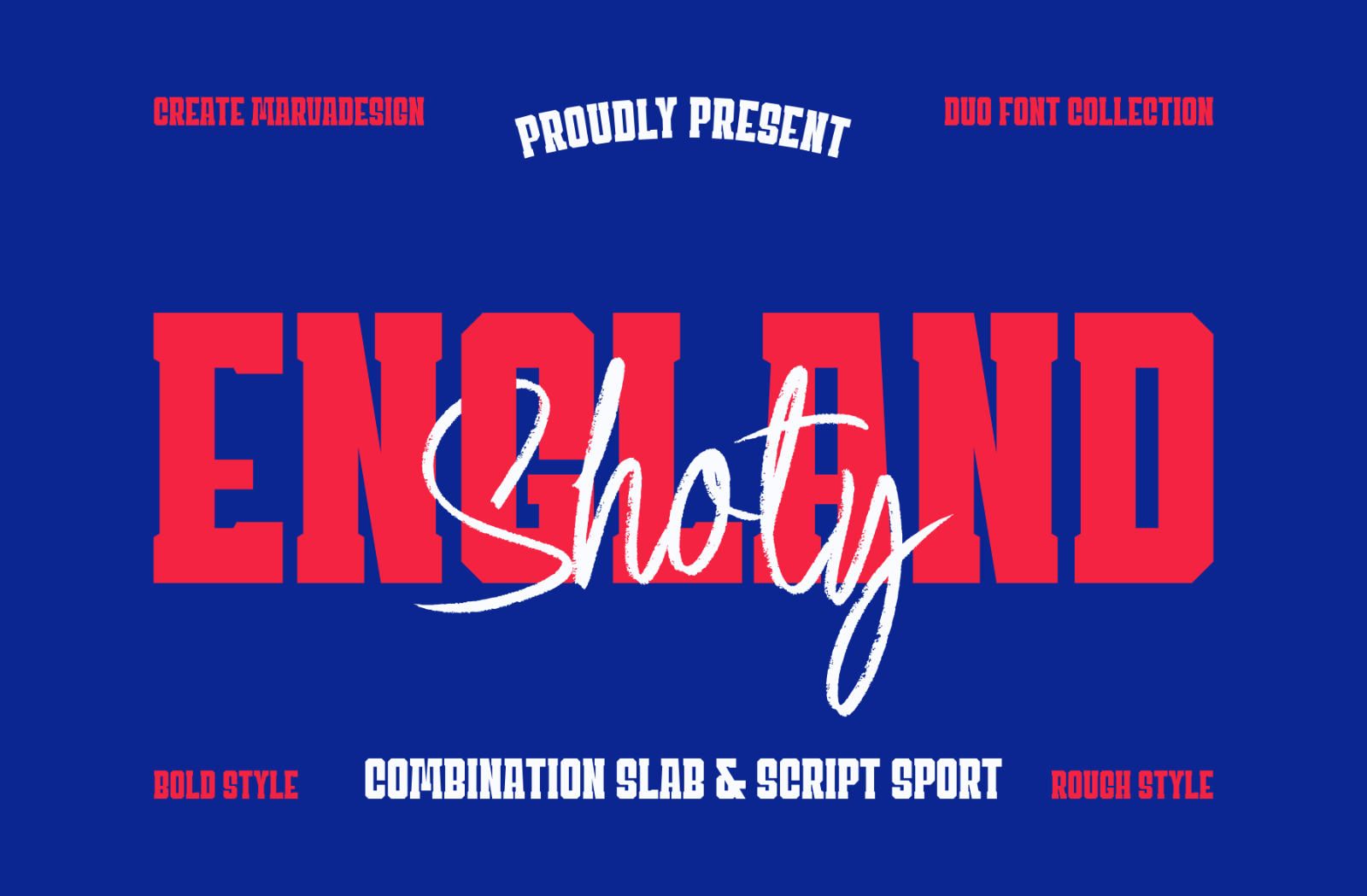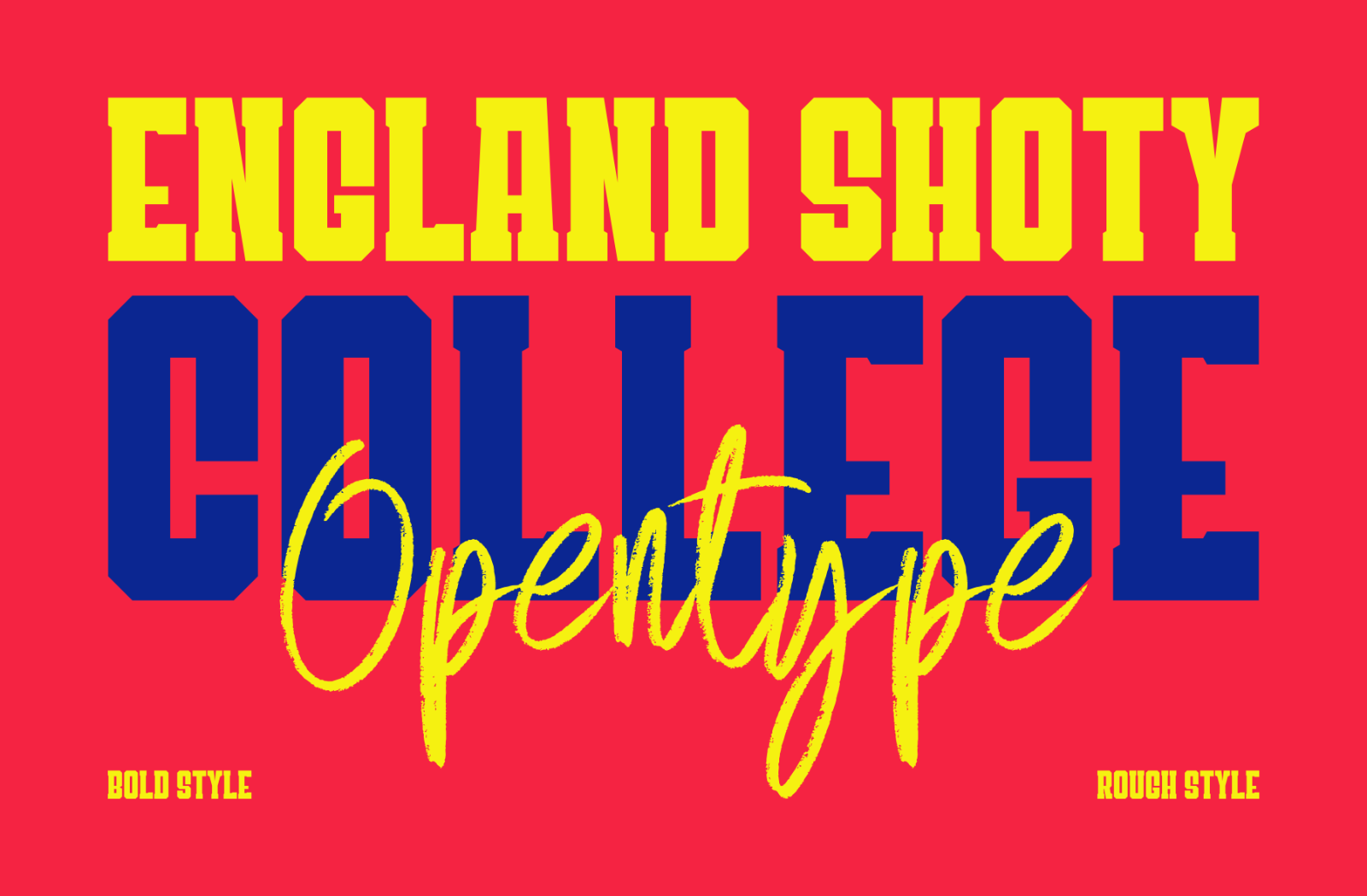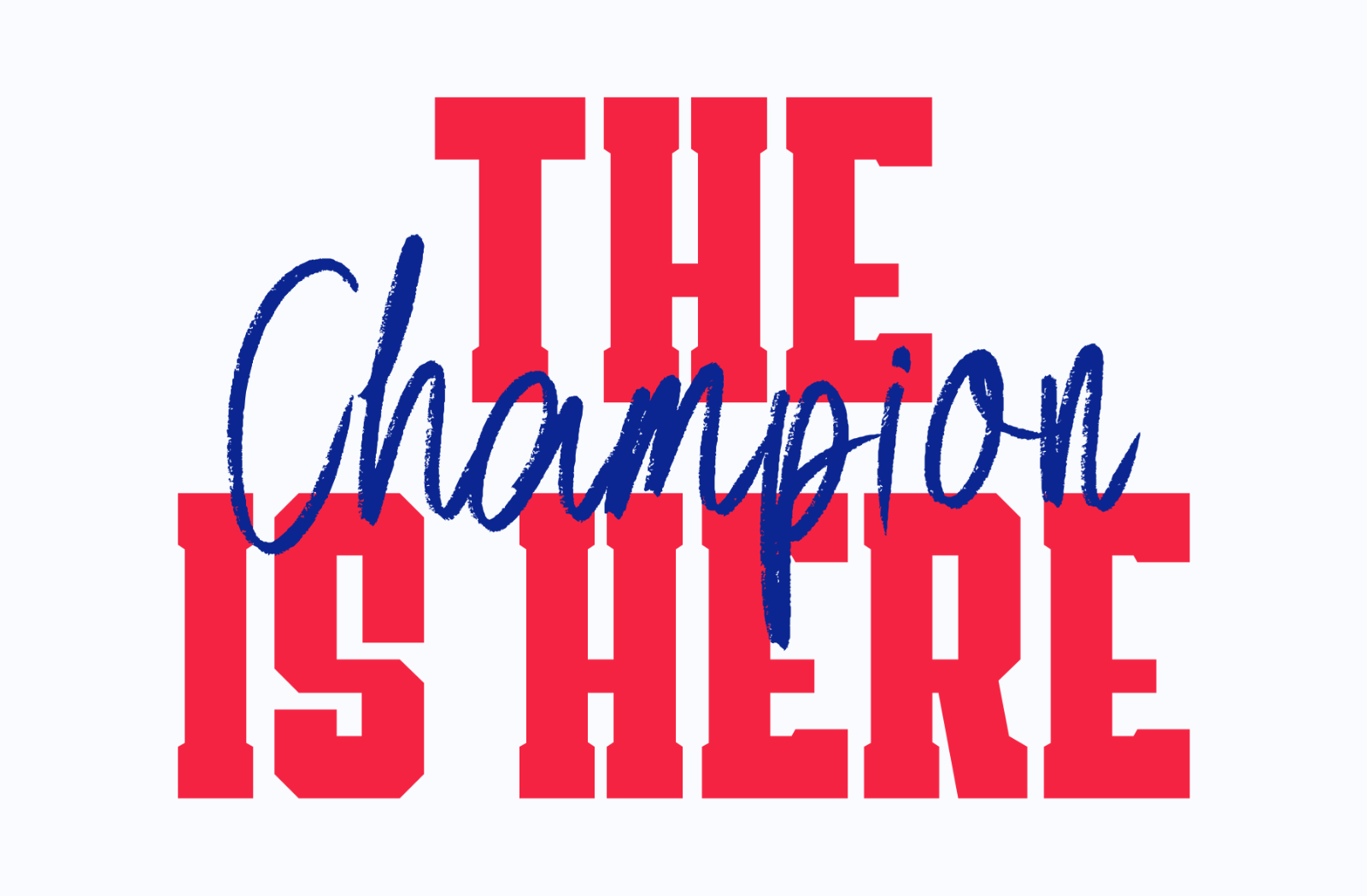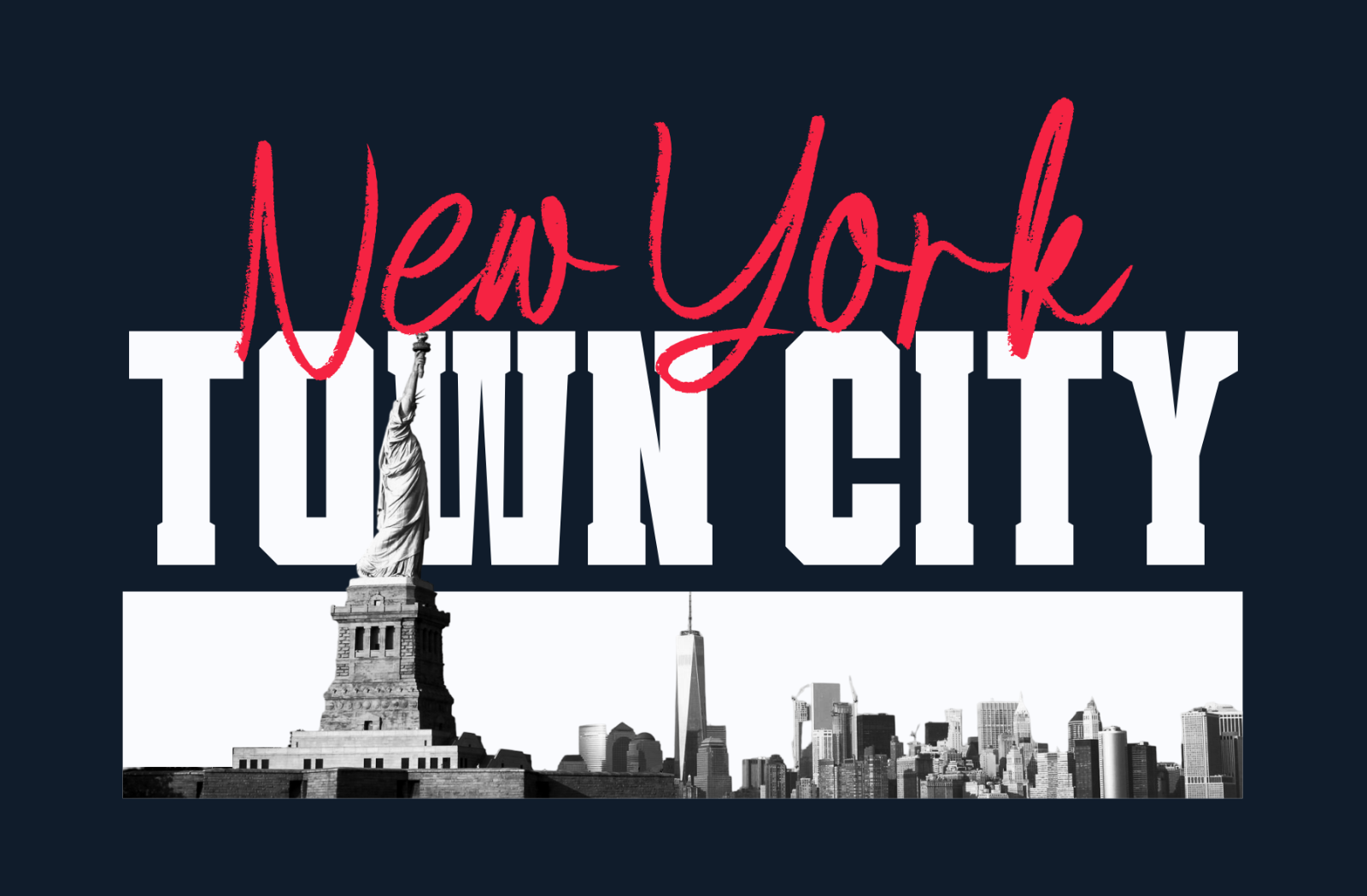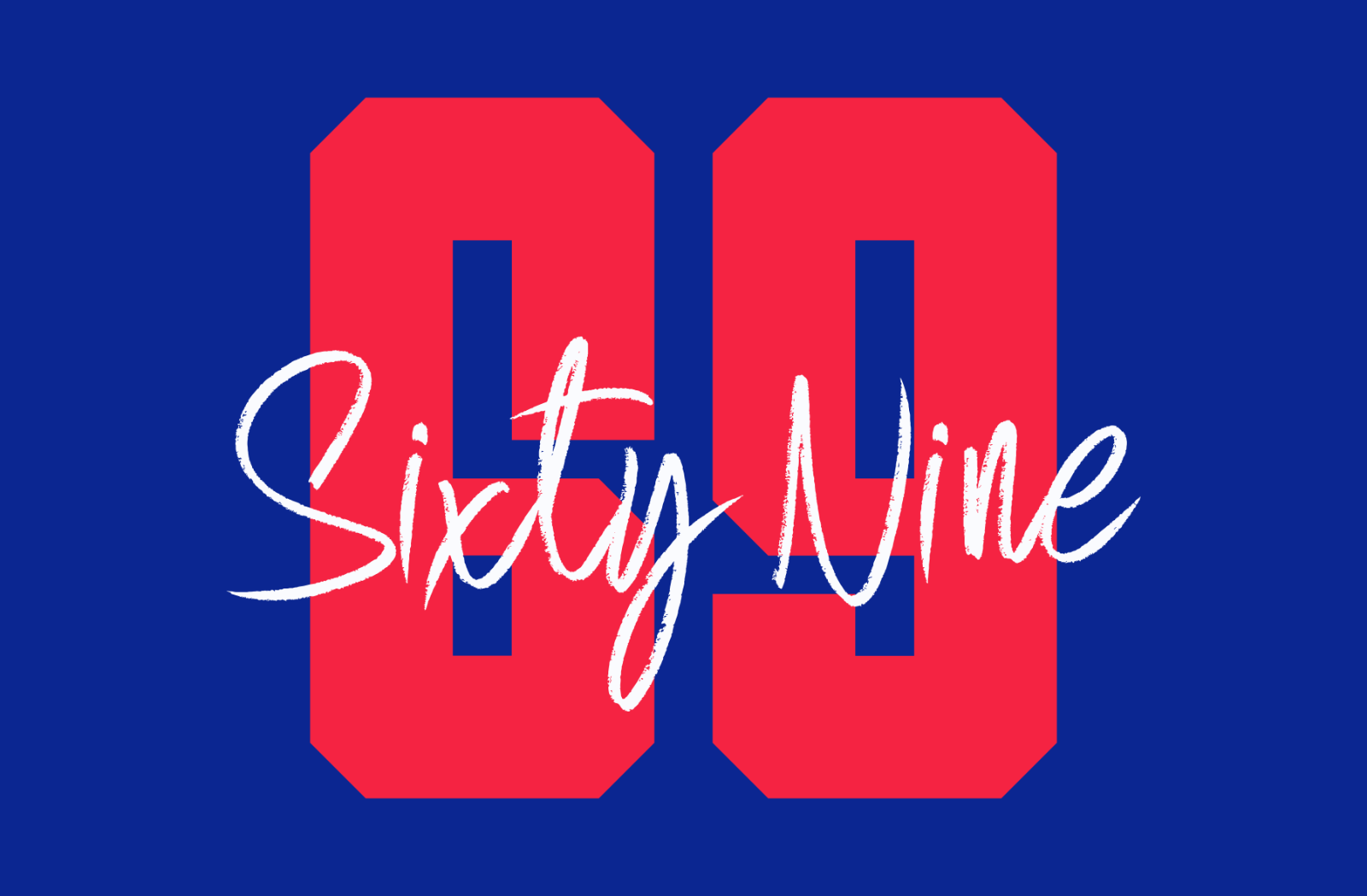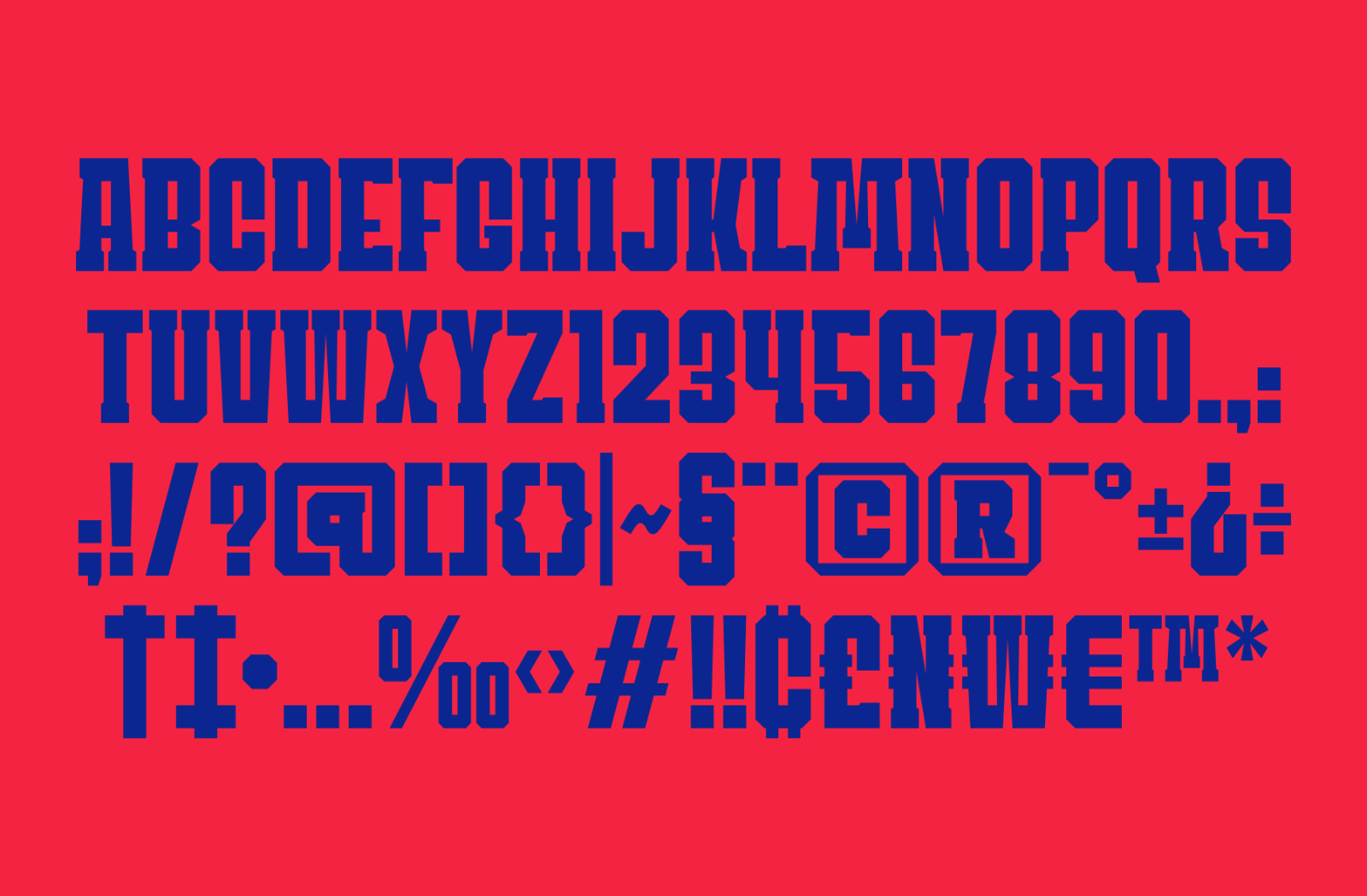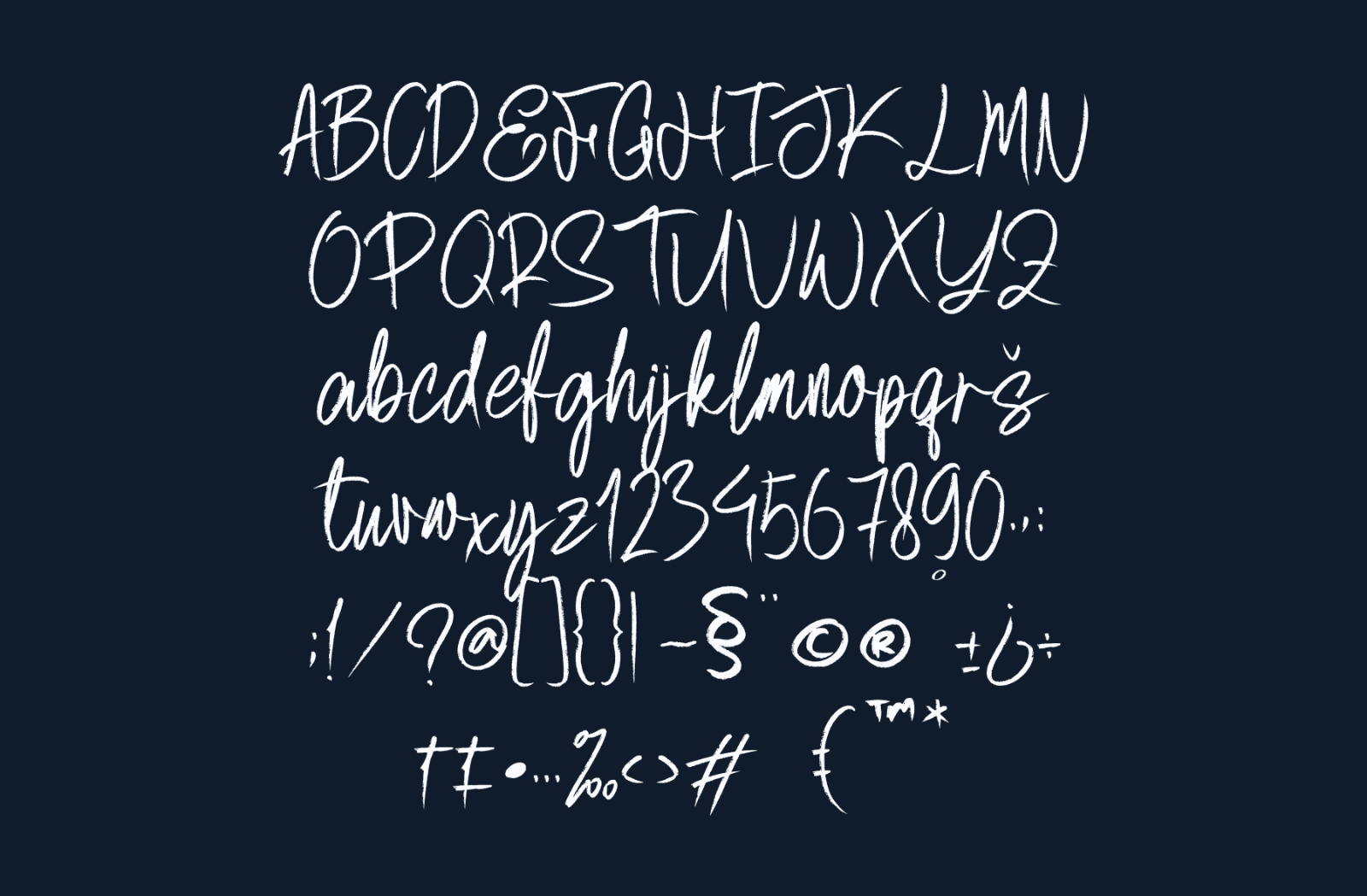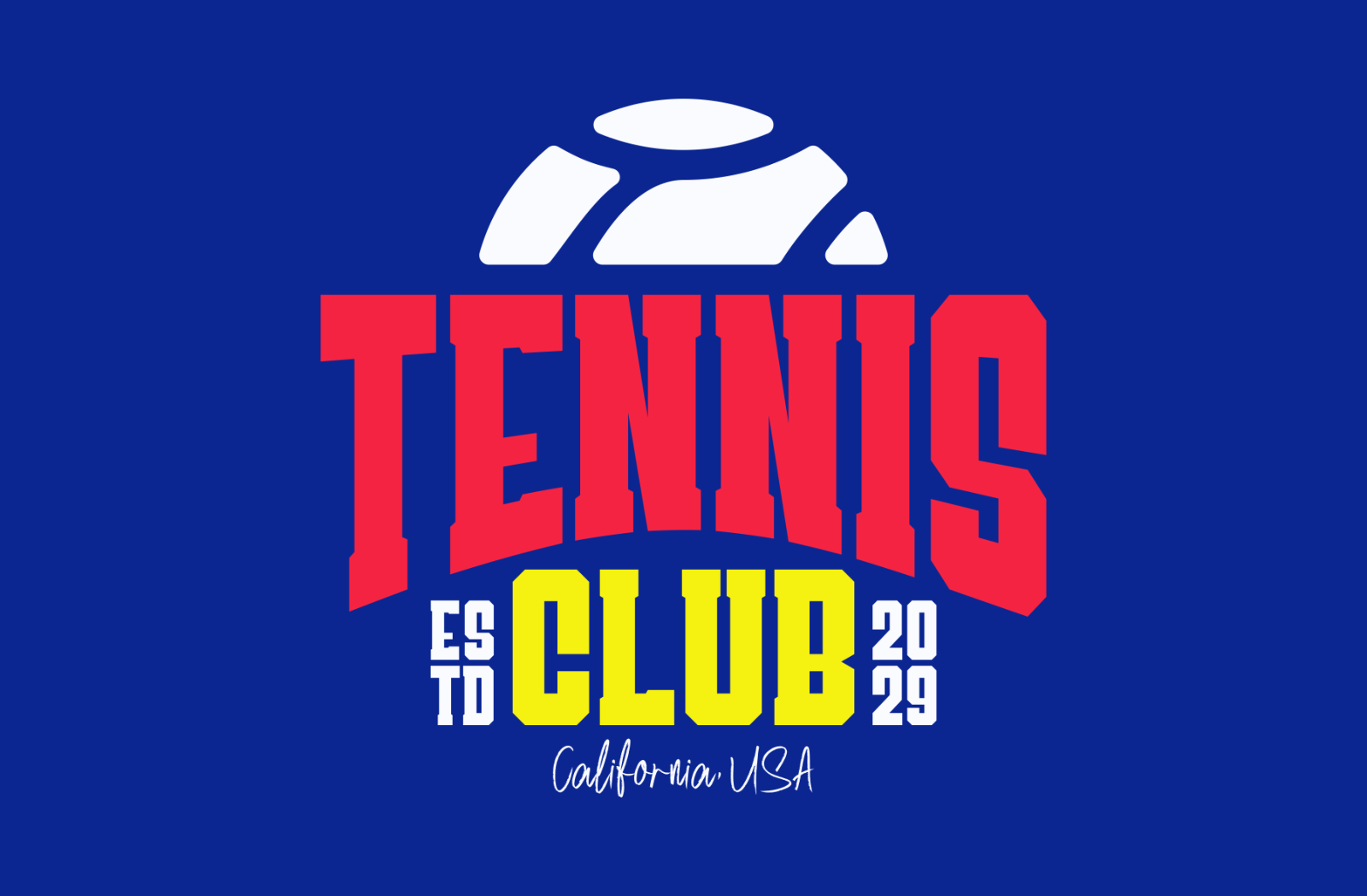
Introducing Duo Sport Font England Shoty is a bold and dynamic duo of fonts called England Shoty, designed to blend athletic energy with expressive flair. The font features two distinct typefaces: a Slab Serif Sport Style font characterized by strong, blocky, geometric letterforms ideal for sports branding and collegiate themes and a Rough Brush Script font that adds a sense of movement and personality through hand-drawn, textured strokes. This combination creates a striking visual identity that balances strength and elegance, making it perfect for athletic logos, team merchandise, and promotional materials. This font set exudes the confidence and aesthetic of old-school American sports, with a color palette and typographic layouts that emphasize its bold, competitive spirit.